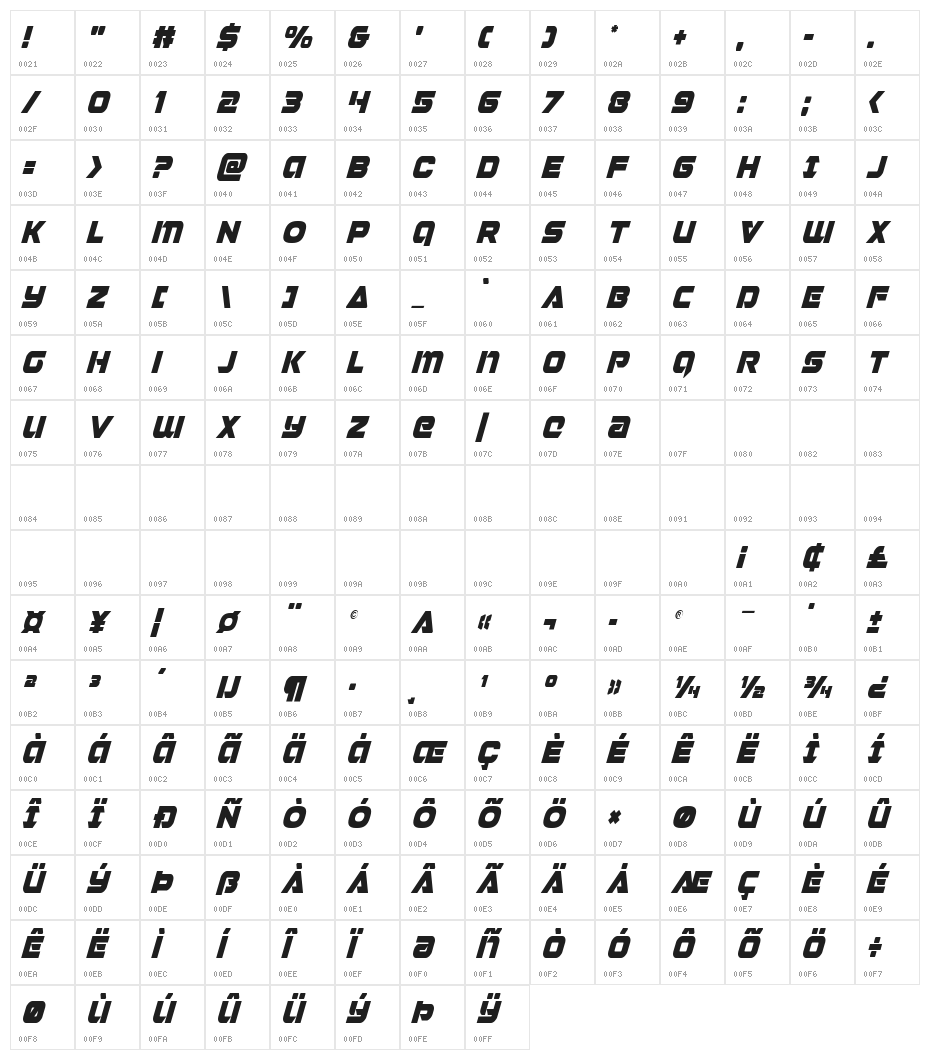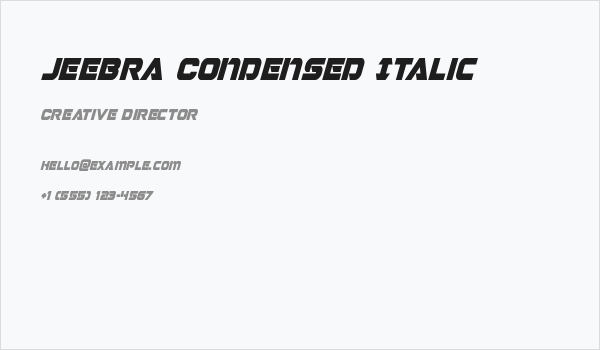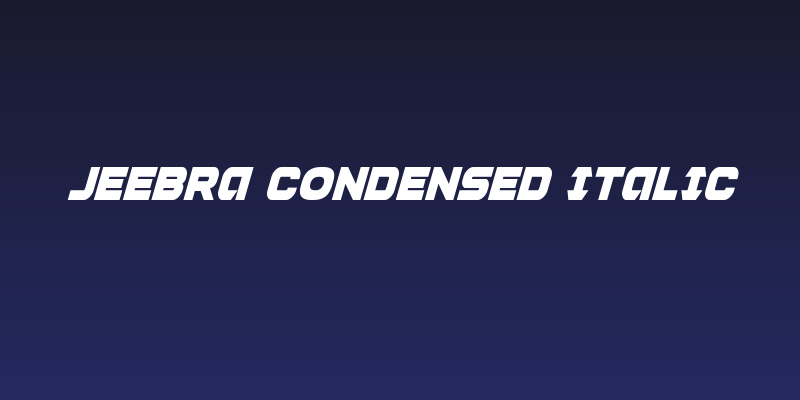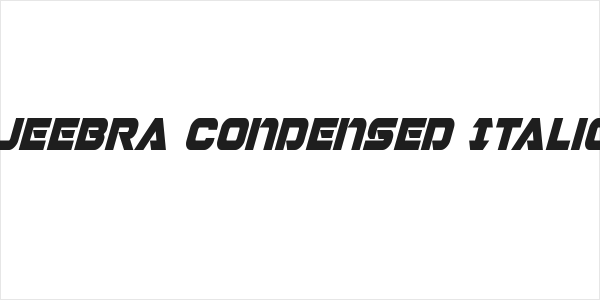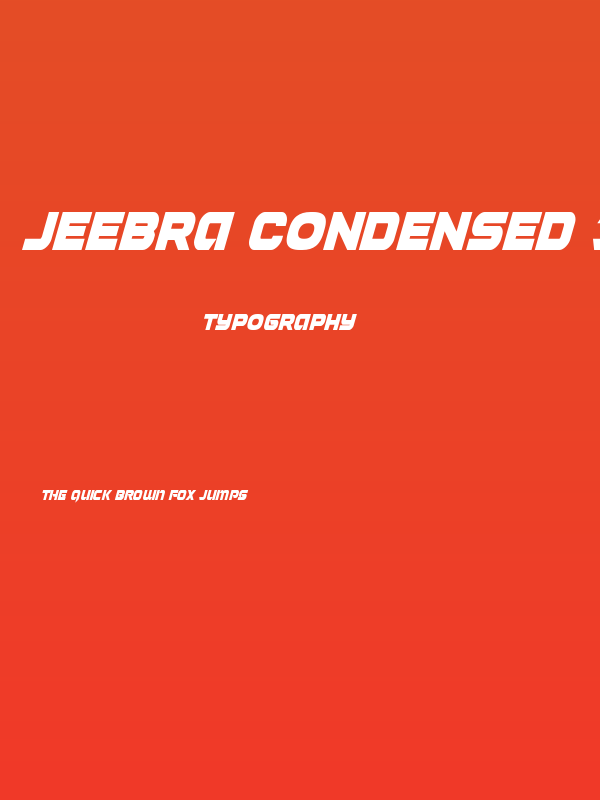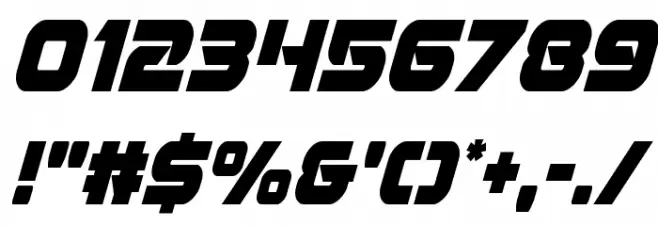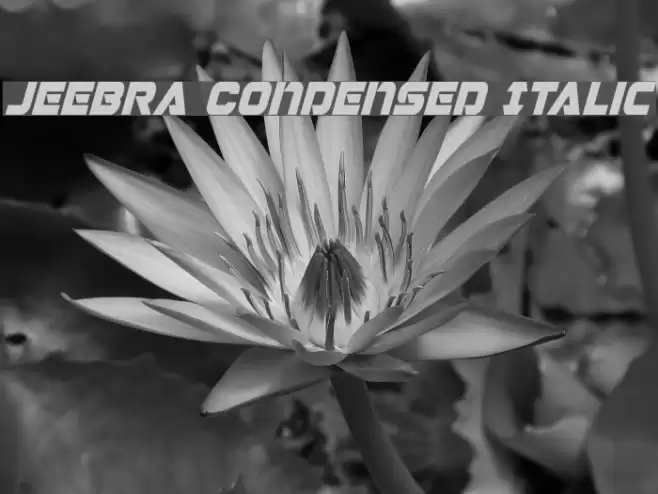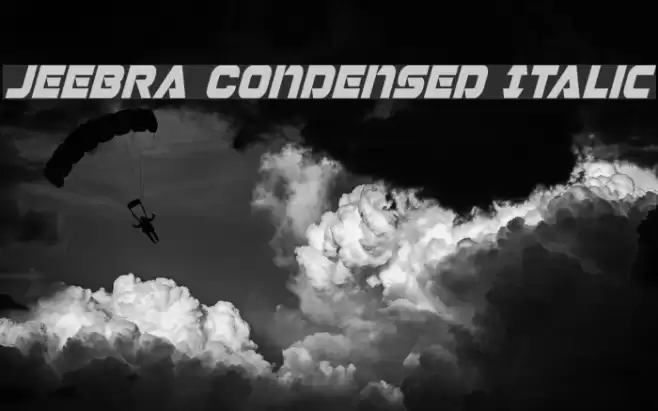
Jeebra Condensed Italic Font
Jeebra Condensed Italic Description
This font features a bold and dynamic style with a distinctly italicized slant, giving it a sense of motion and energy. The characters are condensed, which makes them appear compact and efficient, ideal for maximizing space while maintaining readability. The strokes are thick and uniform, providing a strong visual impact. The angular cuts and sharp edges contribute to a modern, futuristic look, making it suitable for projects that require a bold statement. The numbers and special characters maintain the same stylistic features, ensuring consistency across all text elements.
| Proposed Projects | Ideal for sports branding, tech-related designs, dynamic posters, and futuristic themes. |